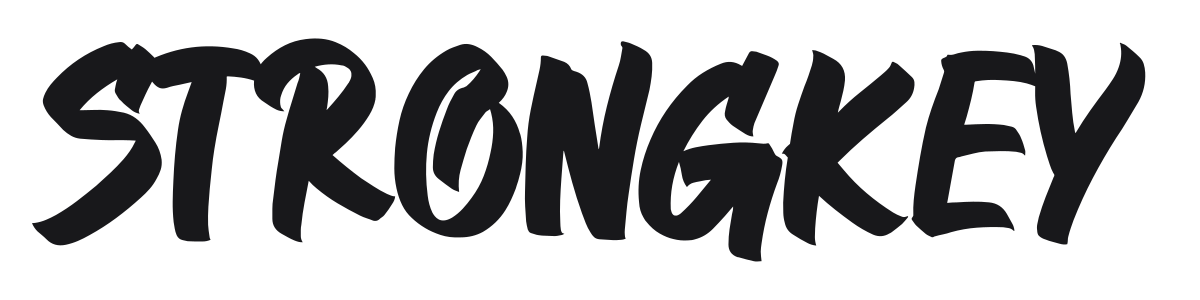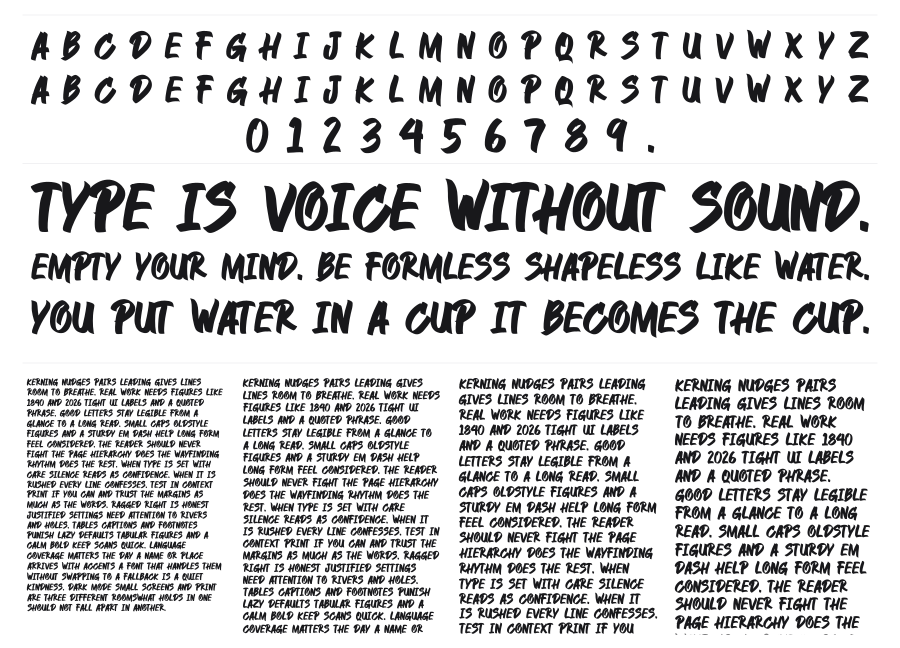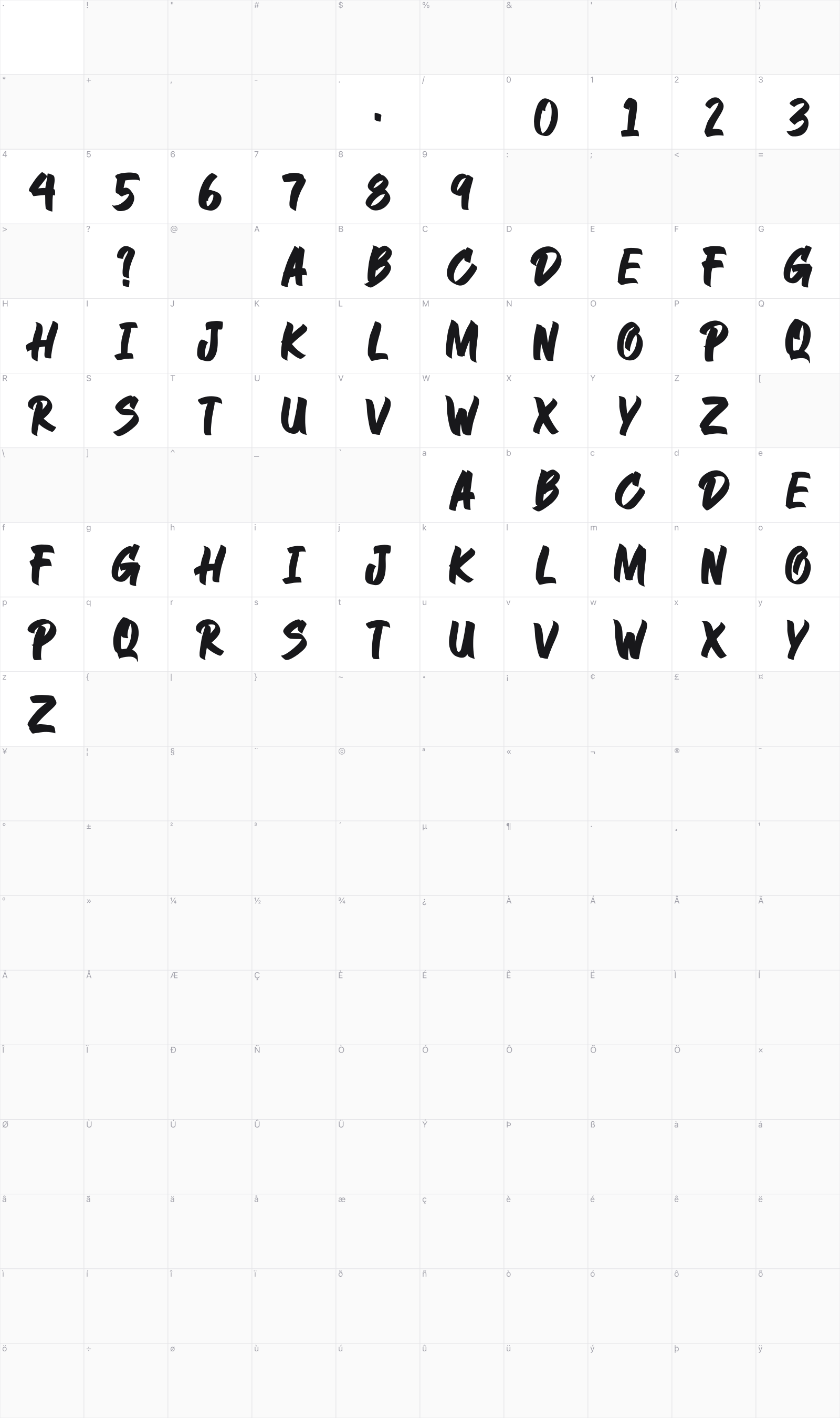
Strongkey
Strongkey is a bold marker-style brush script with a strong italic slant and thick, punchy strokes. The rough edges and irregular terminals give it an authentic hand-applied feel, somewhere between a street artist's tag and a sports brand logotype. It commands attention at large sizes and works well wherever energy and attitude are the message.